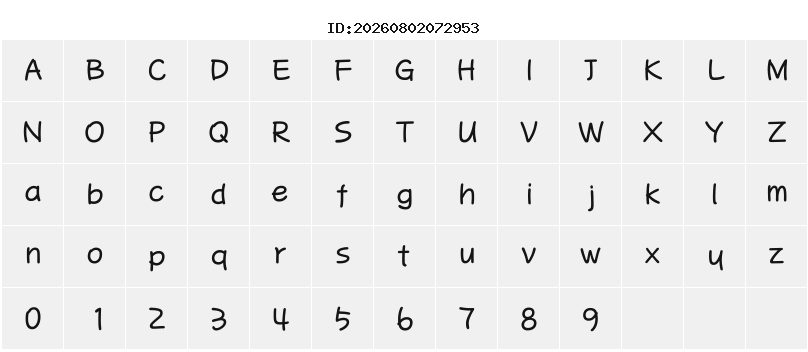
MD개성체 Preview
• Font Name: MD개성체
• Designer: 모리스디자인
• Manufacturer: 모리스디자인
About MD개성체.ttf
MD개성체.ttf is a modern, elegant sans-serif font designed for ultimate readability and visual harmony. Perfect for branding, headlines, web design, and print materials.